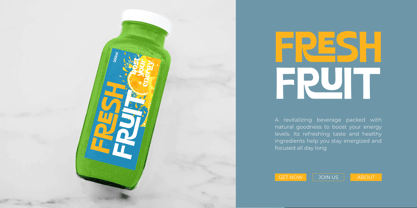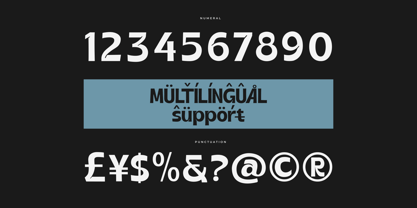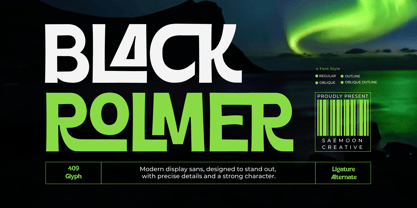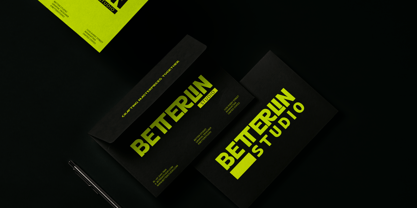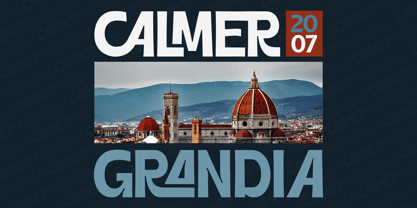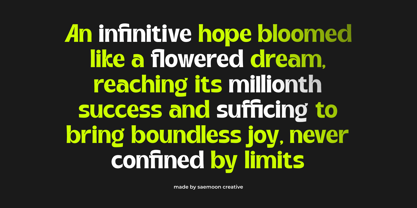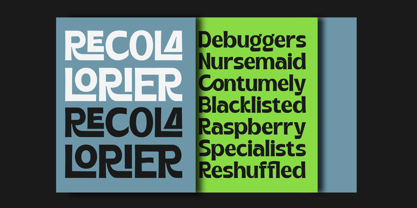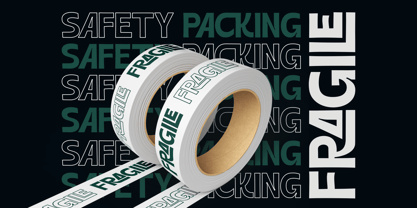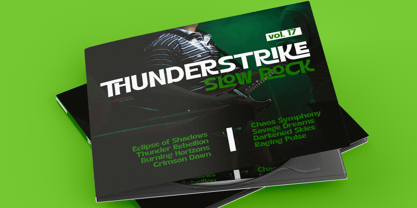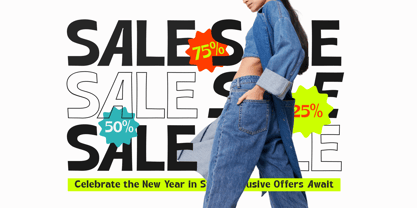
Black Rolmer
Black Rolmer is a captivating display sans-serif font designed to leave a lasting impression. With its bold character and clean lines, this font is perfect for making a statement. What sets Black Rolmer apart is its extensive selection of ligatures, offering a unique blend of creativity and functionality. These ligatures add a special flair to your projects, ensuring each piece stands out with its distinct style and charm.
To further enhance its versatility, Black Rolmer comes in four distinct styles: regular, outline, oblique, and oblique outline. Each style offers a unique look, allowing you to tailor your designs to fit various aesthetics and moods. The regular style provides a solid foundation, while the outline version adds a sleek, modern touch. The oblique style introduces a dynamic slant, perfect for adding movement and emphasis, and the oblique outline combines the best of both worlds, offering a contemporary twist with a bold edge.
Ideal for branding, headlines, and artistic endeavors, Black Rolmer transforms ordinary text into extraordinary visuals, providing a bespoke touch that elevates your design to the next level